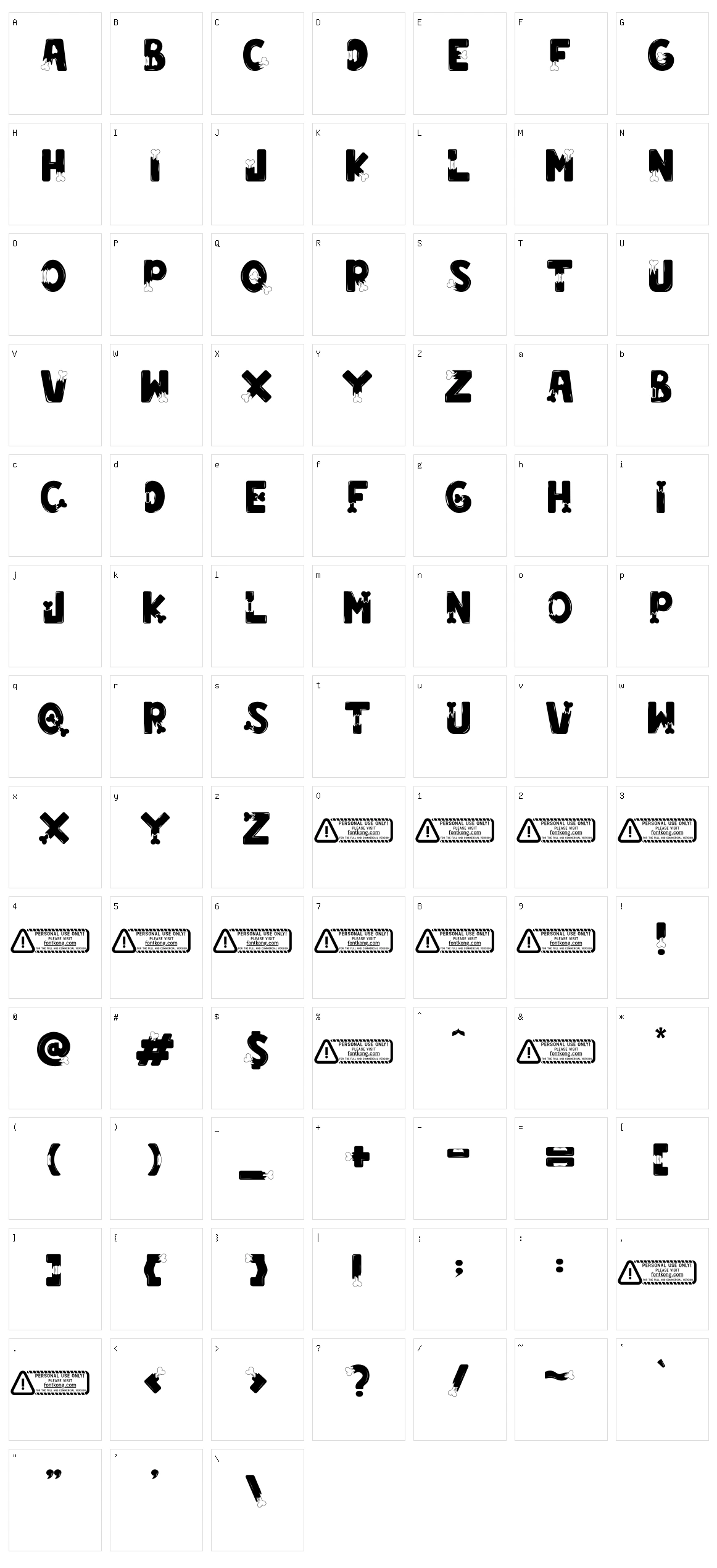
The free font Zombie City is carefully designed by Kong Font, showcasing a thoughtful balance of creativity and usability and falls under the Halloween font style. When you download the ZIP file, it contains only 103.92 KB of font files, making it lightweight and quick to download. Please review the license details below to understand permitted usage and distribution rights. If license information is not available, we recommend using this font for personal projects only or contacting the author directly for commercial usage permissions.